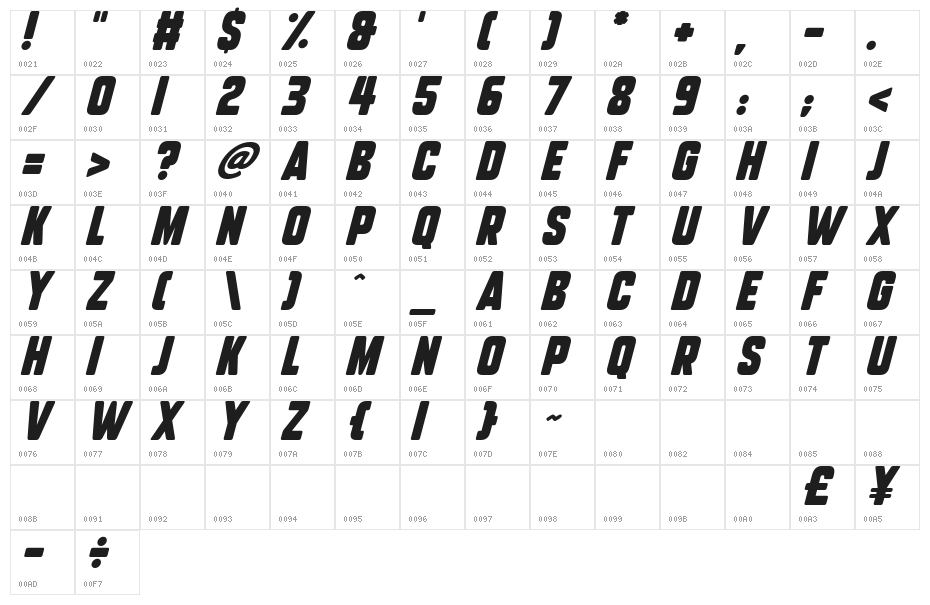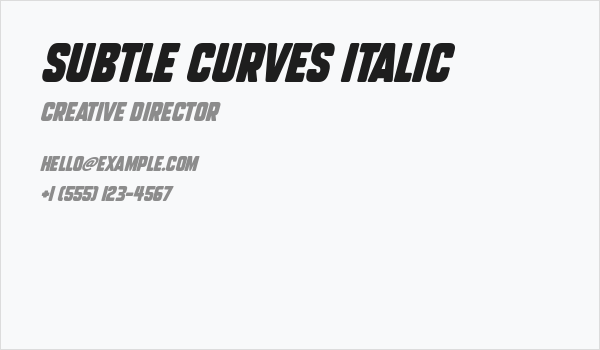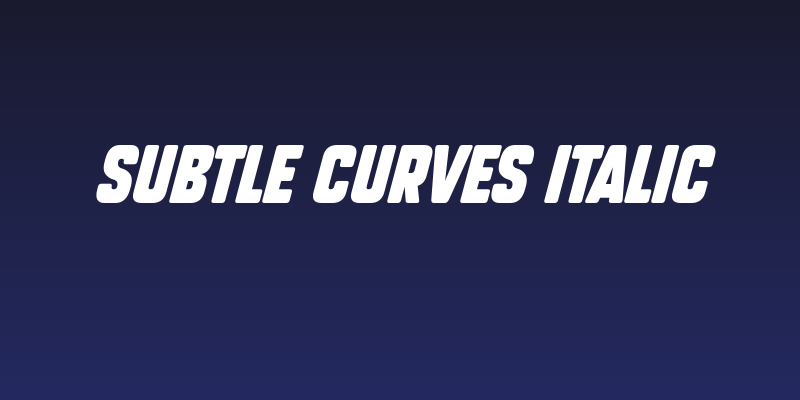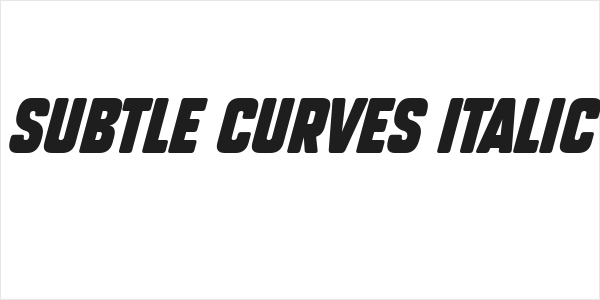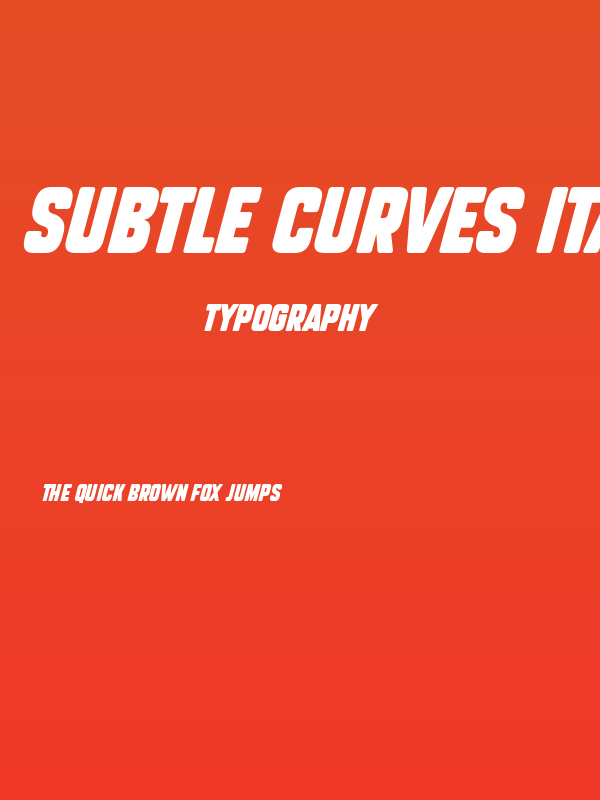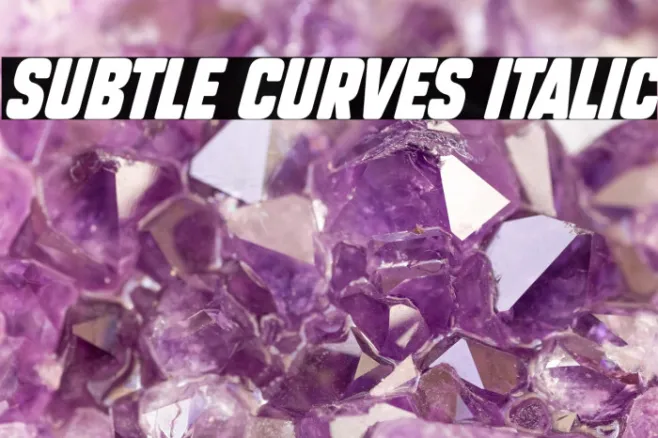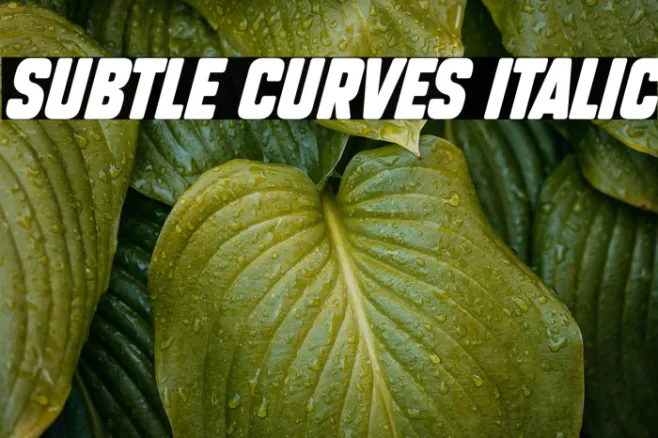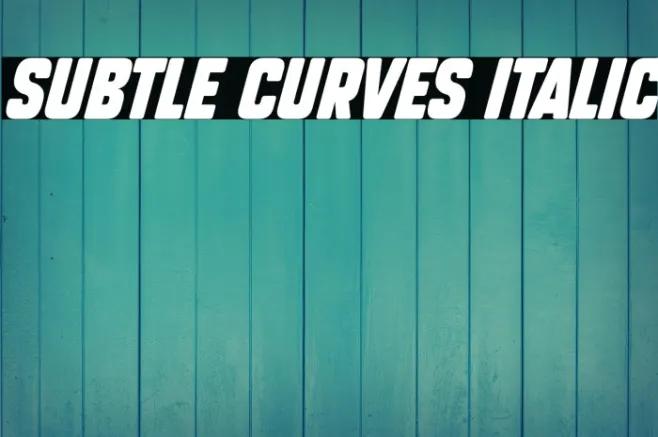
Subtle Curves Italic Font
Subtle Curves Italic Description
This font features bold, italicized characters with a strong presence and a modern aesthetic. The letters are slightly condensed, enhancing their boldness and making them suitable for impactful designs. The strokes are thick and consistent, providing a medium contrast that ensures readability while maintaining a stylish appearance. The curves are subtle yet pronounced, adding a dynamic flow to the text. This font is versatile, making it ideal for headlines, posters, and branding materials where a strong visual impact is desired.
| Proposed Projects | Ideal for headlines, posters, branding, and advertising materials. |